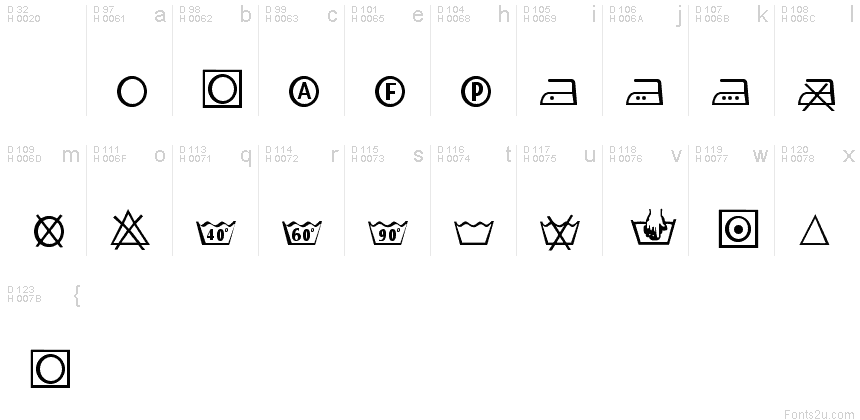
Labels
Labels font by Maria Danilova is a free dingbat font with simple label-style marks, outlined rings, and badge shapes. The set mixes round frames with a squared variant and a crossed, tag-like symbol, giving it a spare, utilitarian look that feels organized without extra decoration.
Labels works well for package labels, sticker sets, folder tabs, product tags, and small signage accents because the symbols read like ready-made markers. It also fits catalog layouts, organizer systems, and UI badges when you need a compact icon set that keeps the same restrained line style throughout.